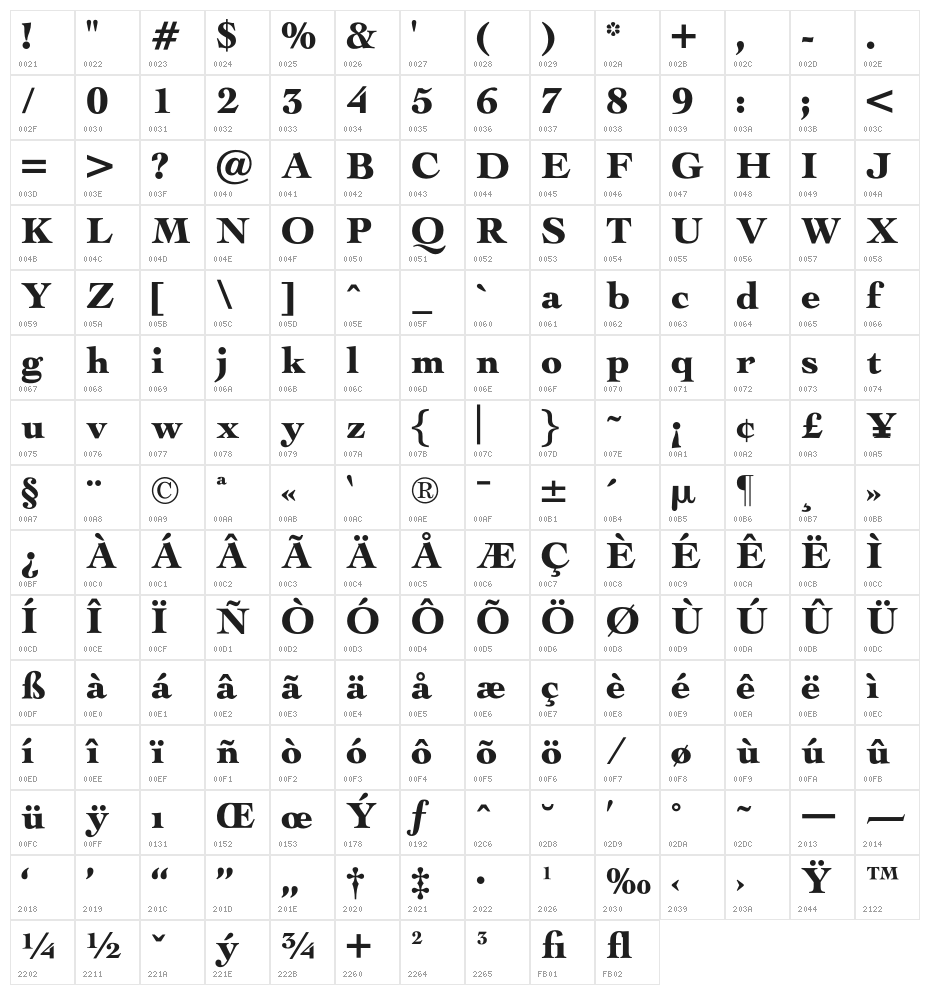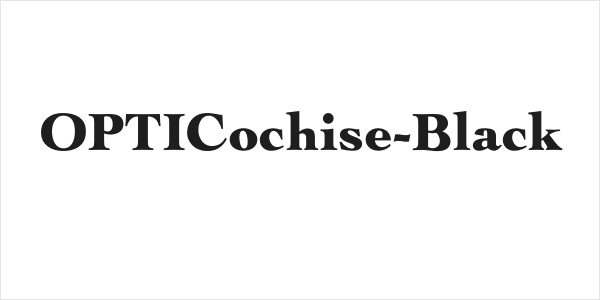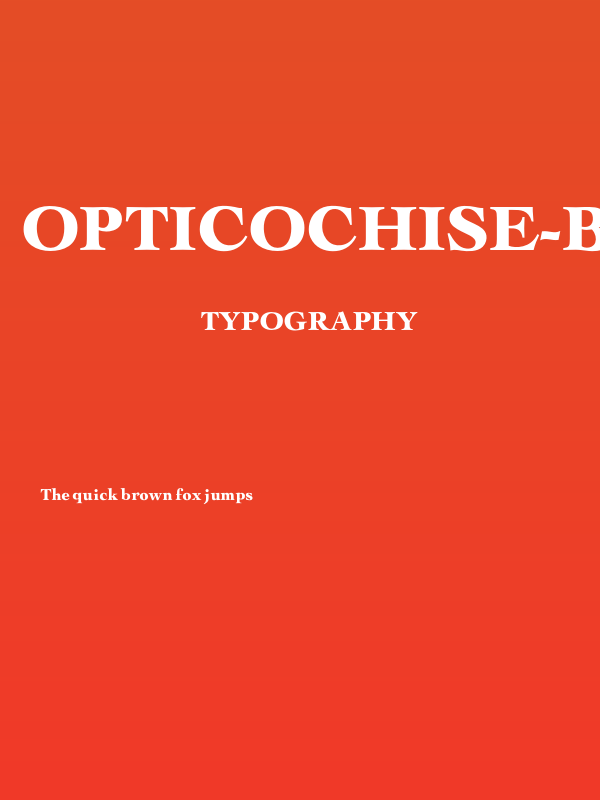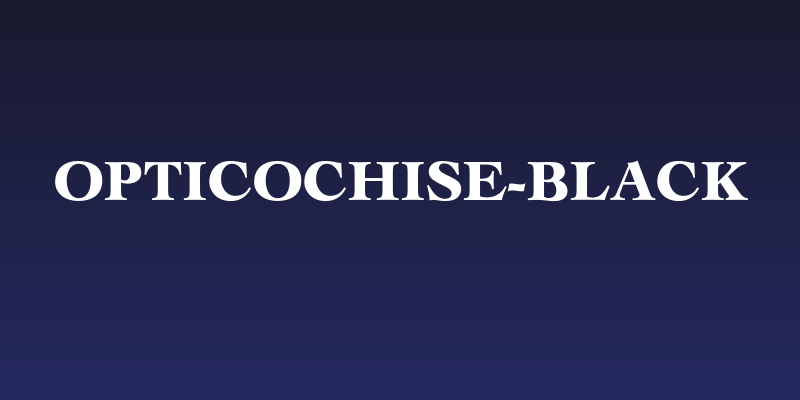
OPTICochise-Black Font
OPTICochise-Black Description
This font features a bold and commanding presence with its thick, robust strokes and sharp serifs. The uppercase letters exhibit a strong, authoritative style, while the lowercase letters maintain a consistent weight, providing a harmonious balance. The numerals are equally bold, ensuring clear readability. Special characters are crafted with precision, maintaining the overall bold aesthetic. The font's design is reminiscent of classic serif styles but with a modern twist, making it versatile for various applications.
| Proposed Projects | Ideal for branding, headlines, posters, and any project requiring a strong, impactful typeface. |